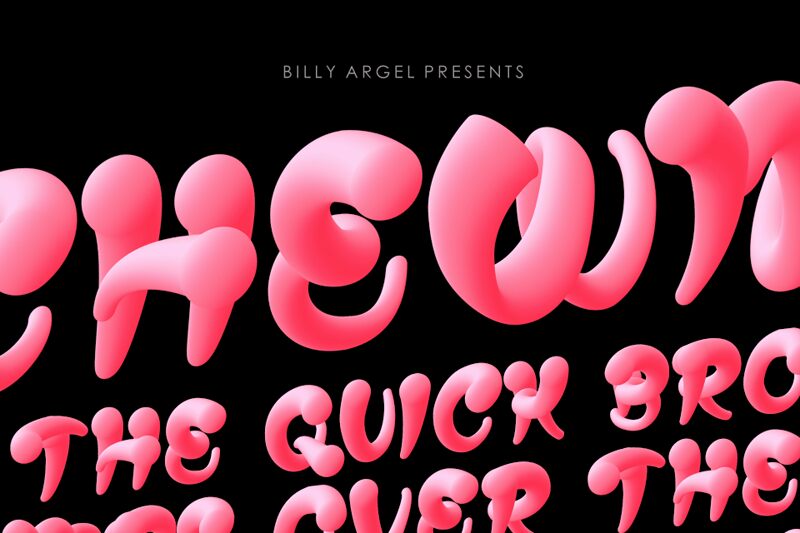
CHEWMEPERSONALUSE-BOLD
CHEWME Body is an extra-bold display font designed by Billy Argel Fonts. With its groovy style, this font adds a touch of retro coolness to any project.
Its bold and eye-catching letters make it perfect for headlines, posters, and album covers, where you want to grab attention instantly. The unique design of CHEWME Body stands out in branding materials, giving your company a distinct and memorable identity. Whether you're working on a music festival flyer or a vintage-inspired packaging design, this groovy font will bring vibrancy and energy to your creative projects.
CHEWME PERSONAL USE BOLD